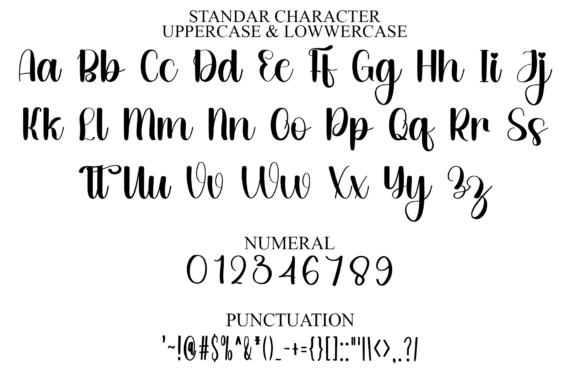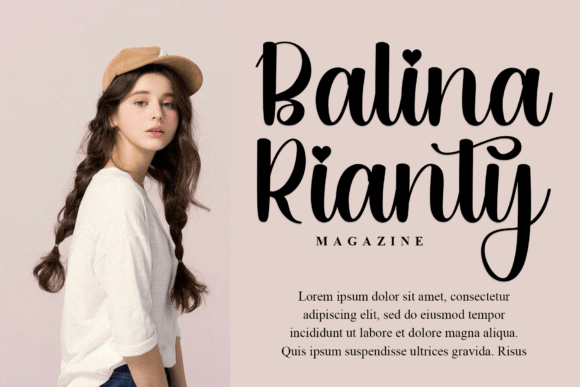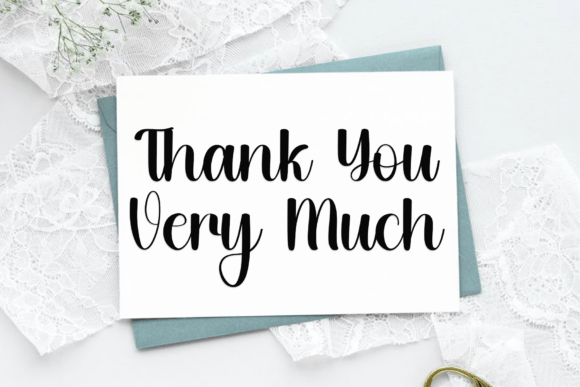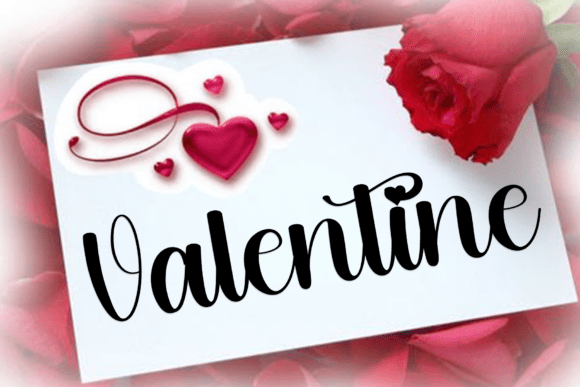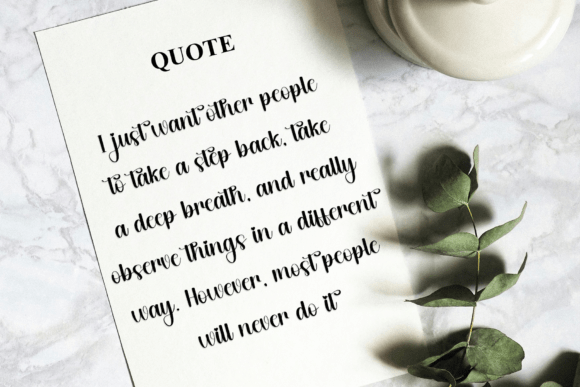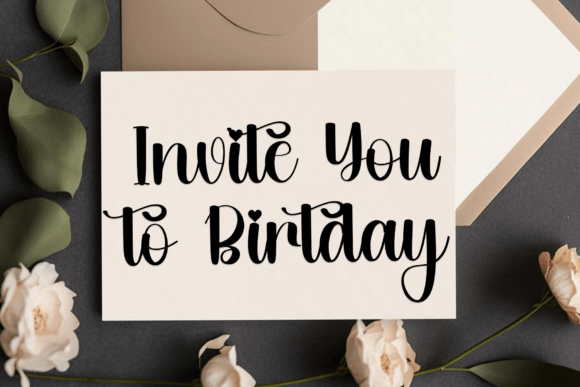
Introduction to Lighting Farmhouse Font Font
Fonts play a crucial role in design, and the Lighting Farmhouse Font font is a typeface that brings both character and versatility to any project. Whether you’re working on a branding project, a website, or a print design, the Lighting Farmhouse Font font offers a unique style that can elevate your work.
Lighting Farmhouse is a bold and authoritative display font that offers a modern, rustic take on hand-lettered typography.
Labeled as a new typeface, modern handmade font , it features massive letterforms characterized by thick, consistent strokes and a slightly bouncy baseline that creates a sense of joyful movement Its defining creative hallmarks are the delicate heart-shaped motifs used as title accents for the lowercase “i,” providing a soft, artisanal feel to an otherwise grounded design.
Key Features of Lighting Farmhouse Font Font
Why Choose Lighting Farmhouse Font Font?
The Lighting Farmhouse Font font is more than just a typeface – it’s a design tool that helps you communicate your message with style and clarity. Its unique character set and versatile design make it suitable for a wide range of applications, from elegant invitations to bold headlines.
With its carefully crafted letterforms and balanced proportions, the Lighting Farmhouse Font font ensures readability and visual appeal across all mediums.
What makes Lighting Farmhouse Font font special?
The Lighting Farmhouse Font font stands out with its unique design, exceptional readability, and versatility across various design applications.